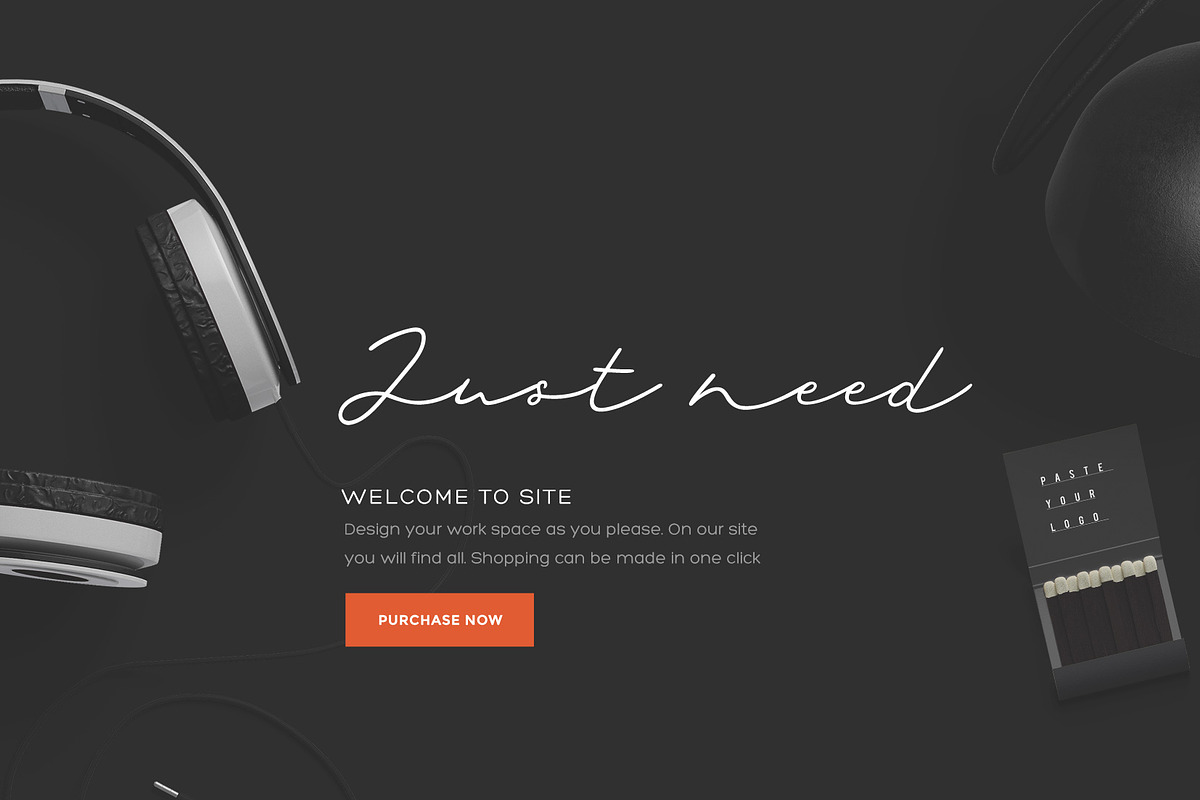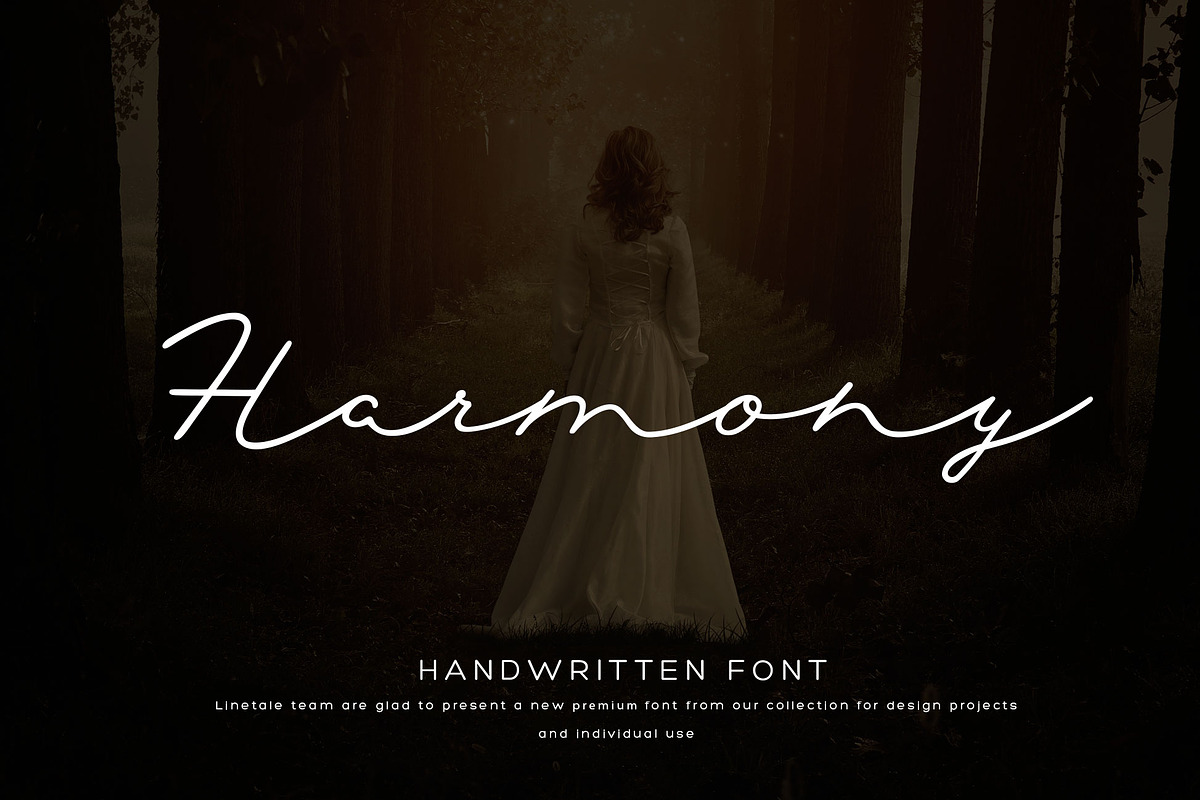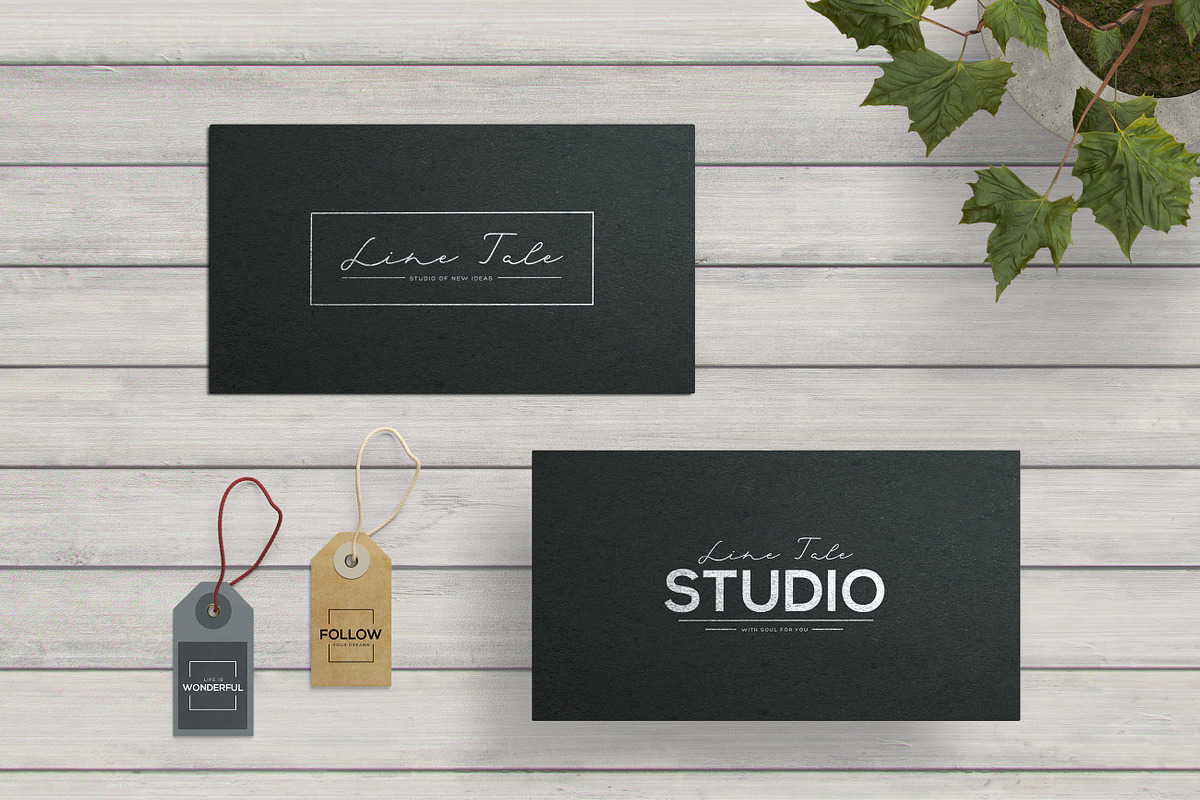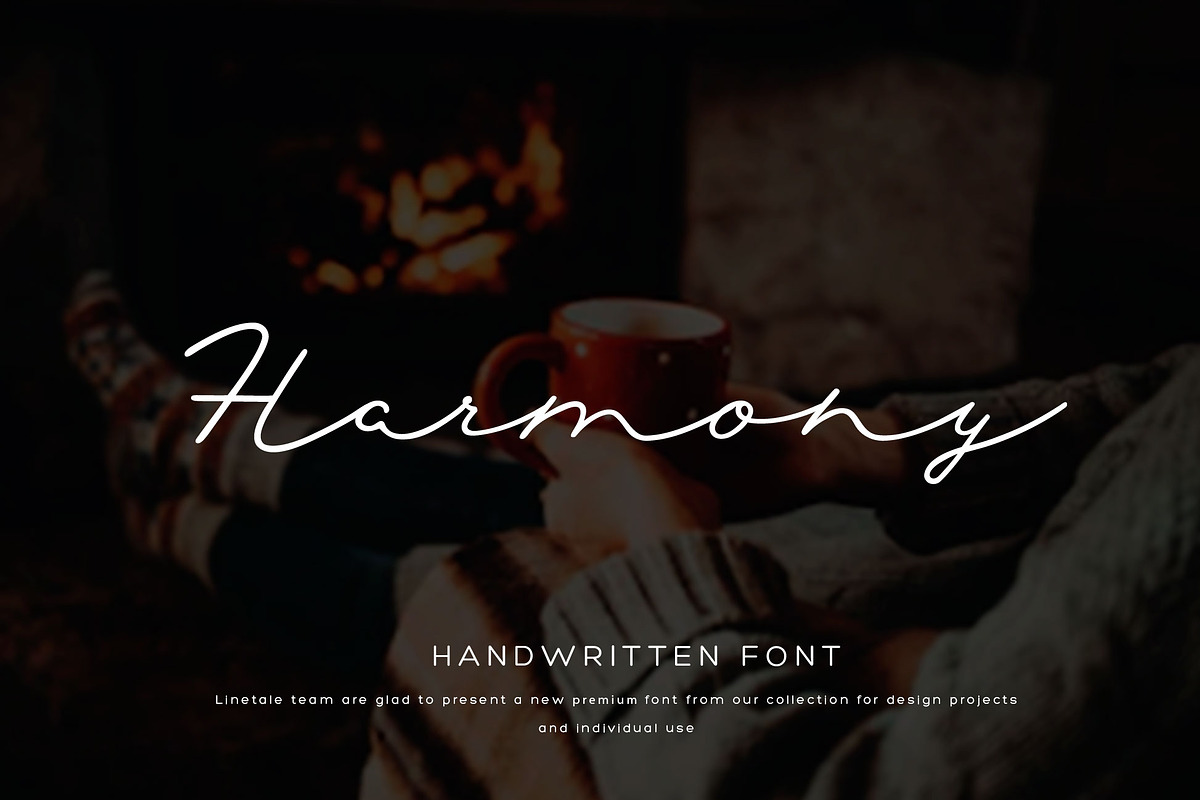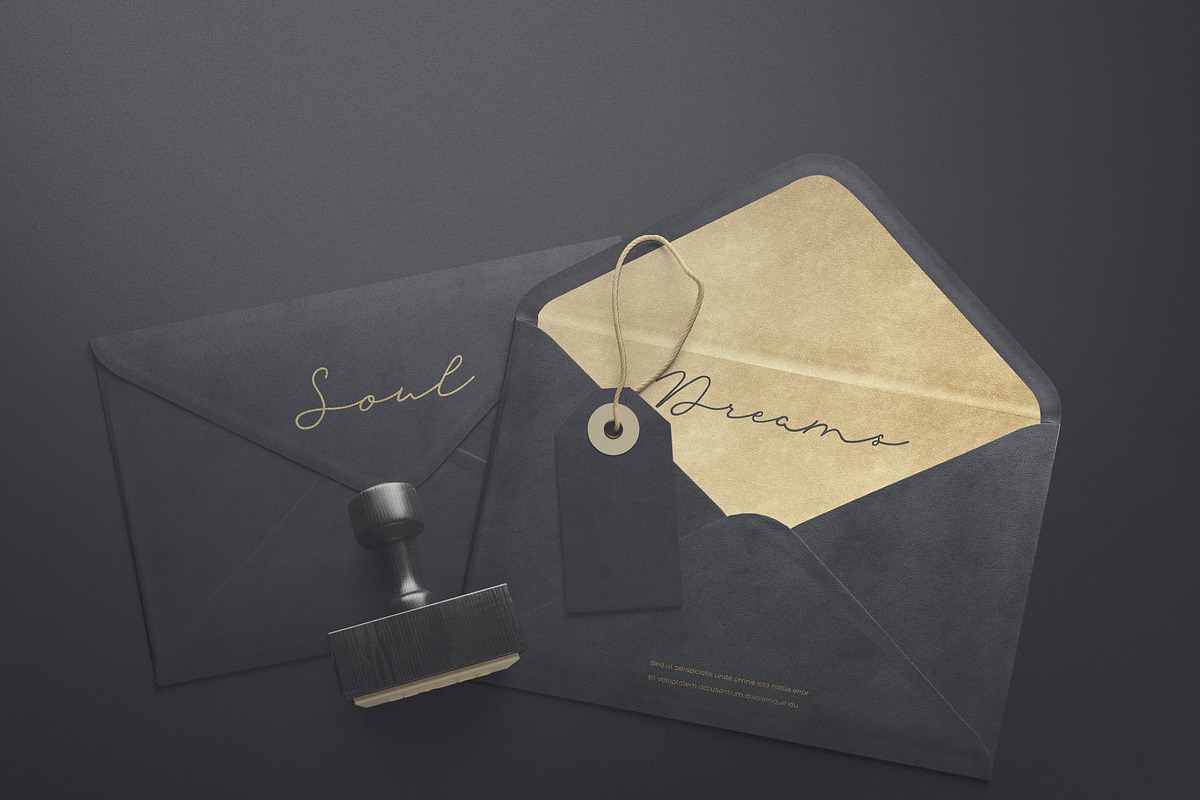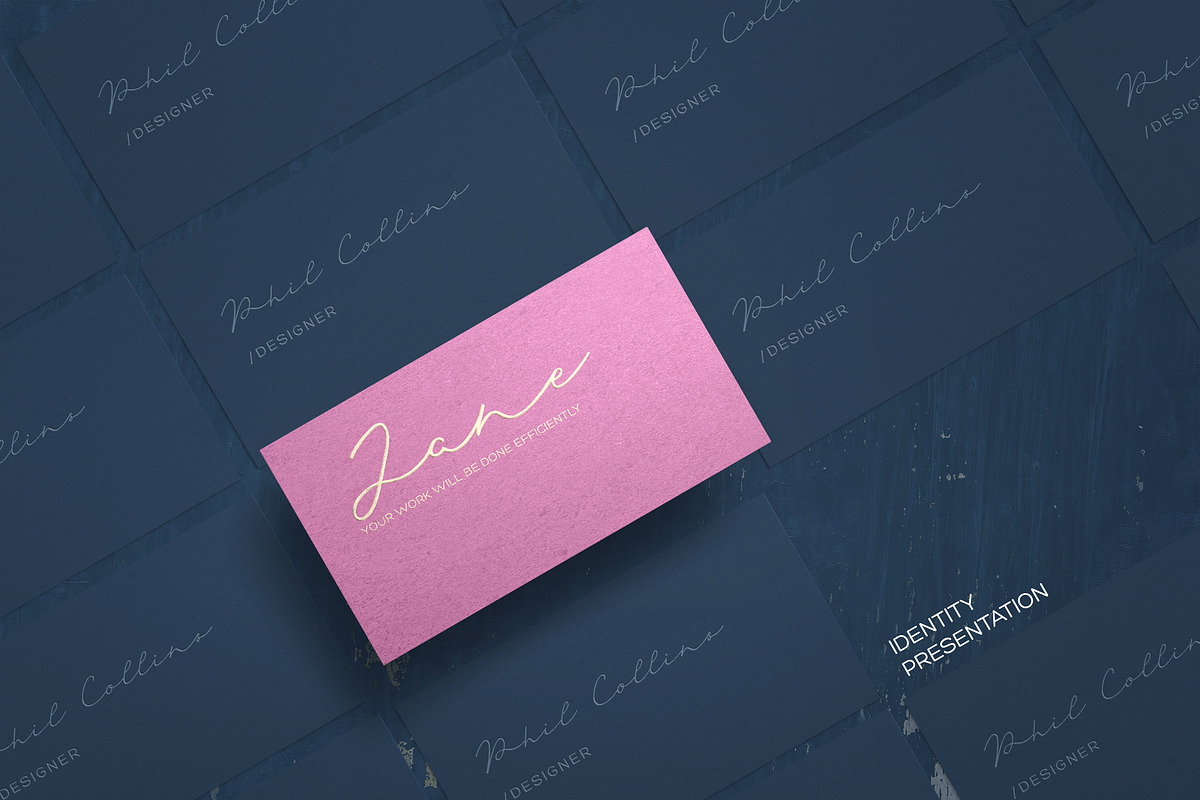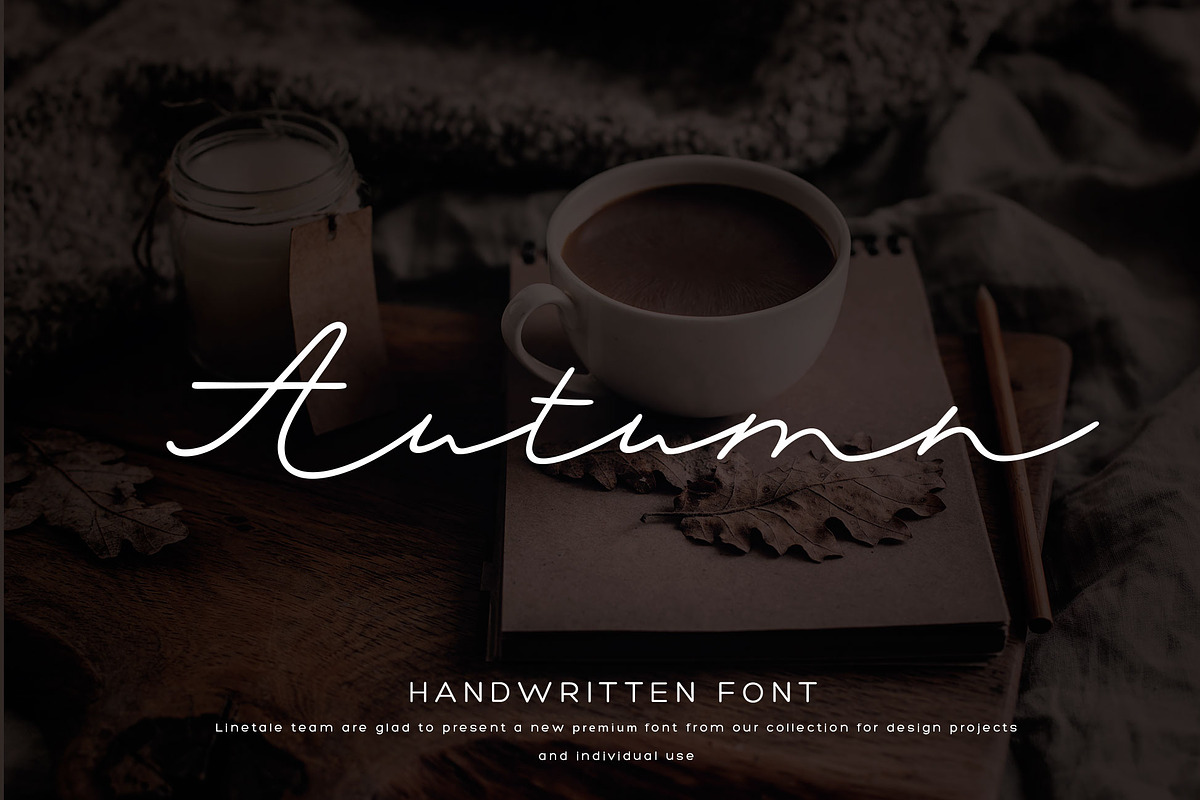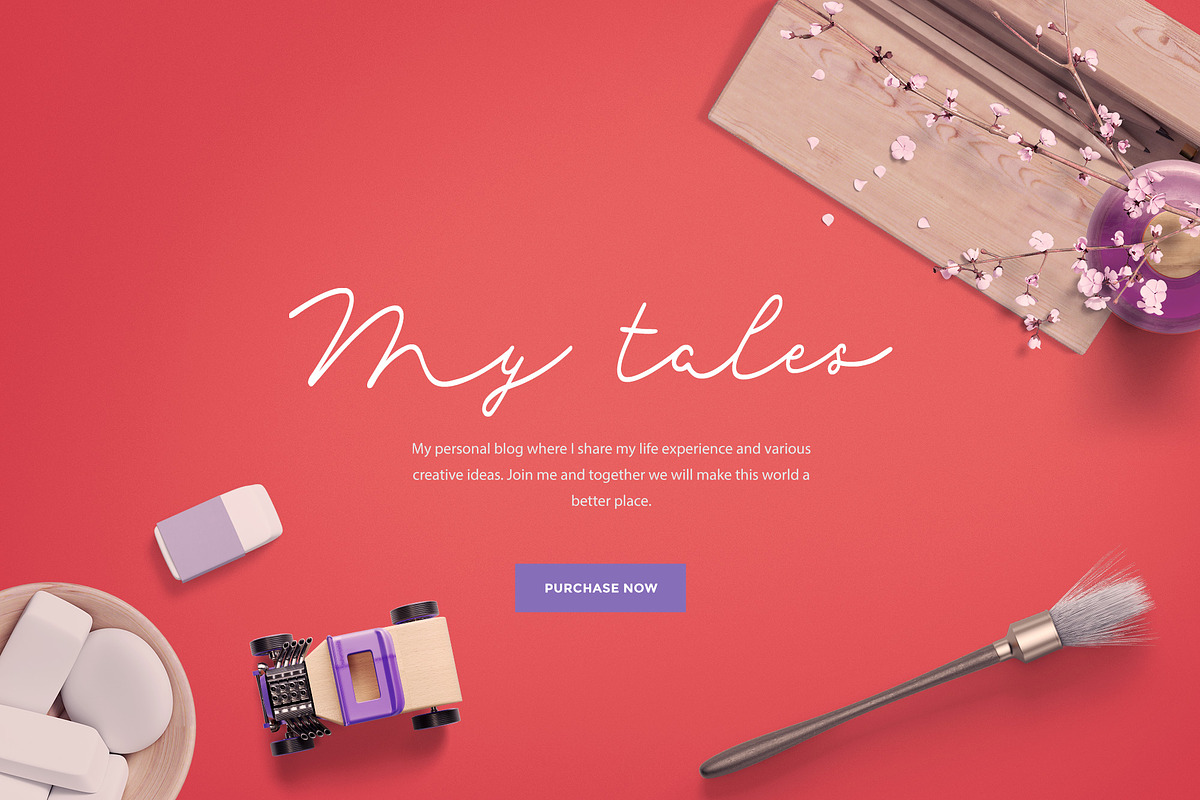
Harmony Font
We’d like to present you the new font called Harmony. Smooth and refined font lines perfectly convey the calmness of handwriting. This font is suitable not only for branding but also for designing your invitations and congratulations. We like its versatility in the transformation of any graphic works, we hope it’ll also help you.
Note: While previewing the font may have display problems. But when you write everything will fit. This is due to the peculiarities of font construction when letters are connected with each other. Just don't worry and create.
Why Harmony Font is worth a look
Harmony Font by LineTale fits naturally into Branding, posters, packaging, typography.